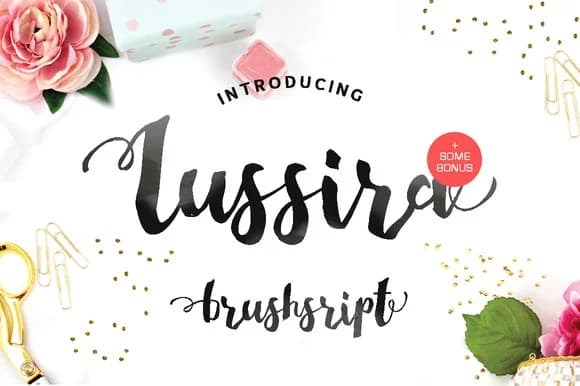
Lussira Brushscript by LostvolType is a flowing handwritten script that brings contemporary elegance through its loose, expressive letterforms and responsive pen-stroke character. The typeface channels authentic brush-pen movement while maintaining strong legibility at various scales, making it a compelling choice for designers seeking genuine personality without compromising clarity or visual impact in their work.
The font's fluid character strokes and natural connections work particularly well for creating luxury branding applications, designing custom wedding invitation suites, developing artisanal product packaging designs, and establishing small-batch cosmetics brand identities. Its organic rhythm and responsive letterforms support both headline-driven compositions and refined text treatments, offering creatives meaningful flexibility across multiple design contexts and applications. The letterforms retain a distinctly handmade quality that appeals to contemporary audiences drawn to authentic, non-commercial aesthetics and genuine craftsmanship in typography and design work.
Lussira Brushscript Font is a script font that shines as a display or heading face. Pair it with a clean sans-serif or serif font for body text β the contrast creates a clear hierarchy while the two styles stay balanced and easy to read.